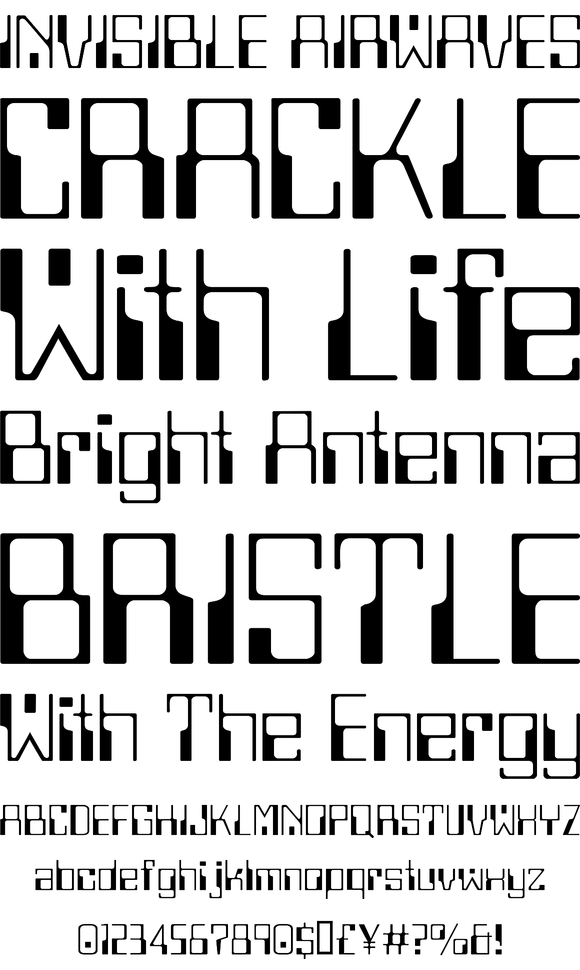
Time Machine
Foundry: TypeArt
Time Machine™ is type design that simulates old computer lettering in an era before modern bar codes.
Each font in the Time Machine™ family has a full character set of 232+ letterforms, with all characters designed in the style of the font.